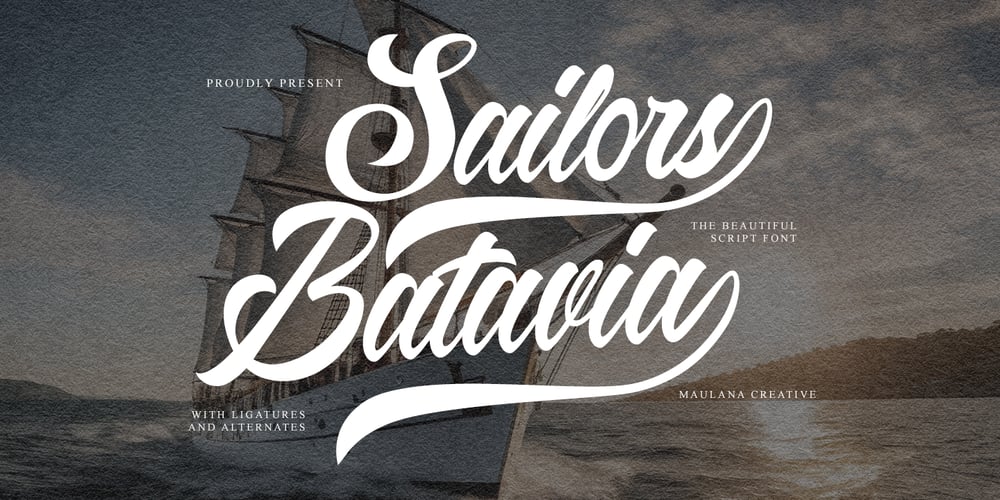
MC Sailor Batavia Font Family was designed by Gilang Maulana and published by Maulana Creative. MC Sailor Batavia contains 1 styles and family package options. Give your designs an authentic handcrafted feel. “Sailors Batavia Beautiful Script Font” is perfectly suited to stationery, logo, typography quotes, magazine or book cover, website header, clothing, branding, packaging design and more. Include Ligature and Alternate.Thanks for use this font ~ Maulana